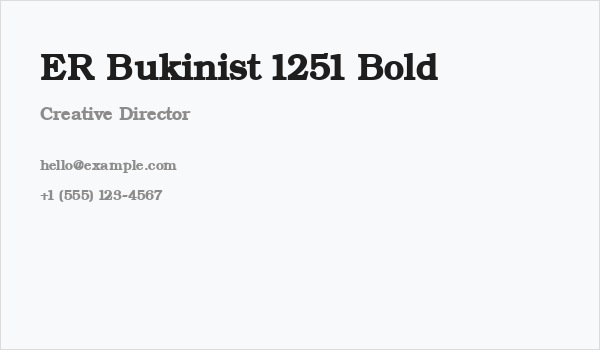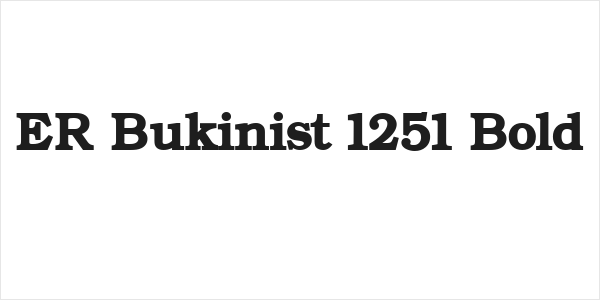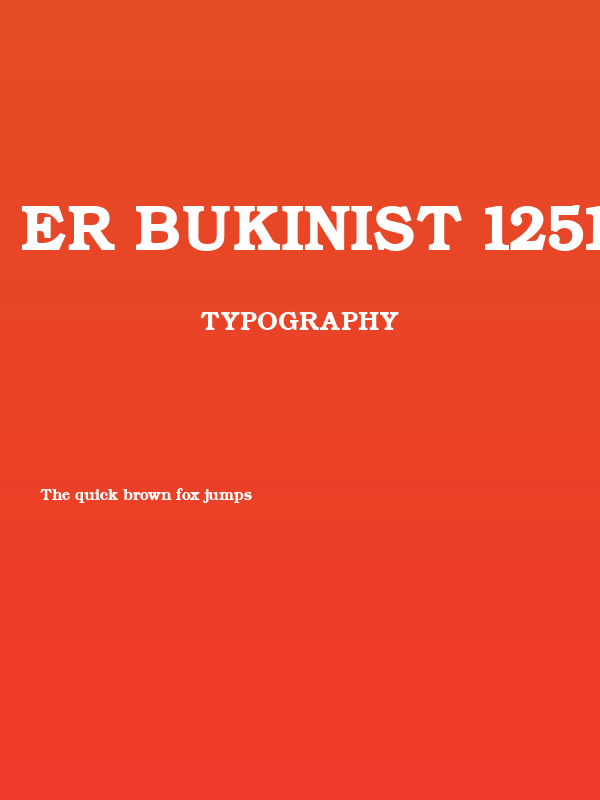
ER Bukinist 1251 Bold Font
ER Bukinist 1251 Bold Description
This font features a bold and commanding presence with its thick, sturdy strokes and pronounced serifs. The uppercase letters are robust and evenly spaced, creating a sense of balance and authority. The lowercase letters maintain a consistent weight, providing a harmonious flow across the text. Numbers are clear and easily distinguishable, enhancing readability. Special characters are designed with the same boldness, ensuring they stand out. The overall style is classic, with a hint of modernity, making it versatile for various design needs.
| Proposed Projects | Ideal for headlines, posters, branding, and any project requiring a strong, authoritative font. |